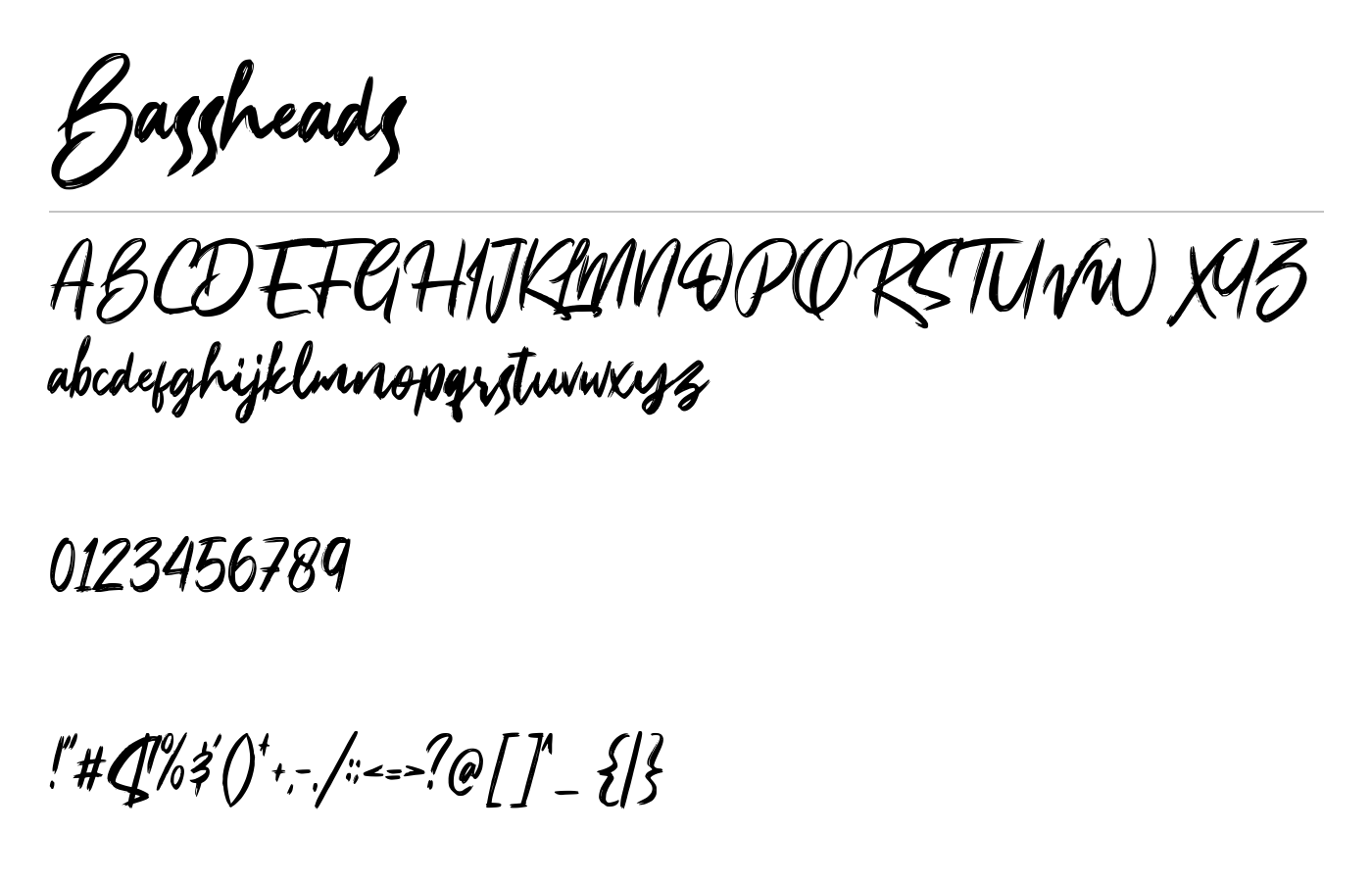
Bassheads is a bold and dynamic script font with a hand-painted, brushstroke style that conveys energy and creativity. Its flowing letterforms and uneven strokes give it an organic, expressive feel, making it ideal for designs that want to evoke a personal, artistic touch. This font works great for logos, posters, and branding that seek a vibrant, modern yet casual impression.
Bassheads Font
About Bassheads Font
| Designer | Garisman Studio |